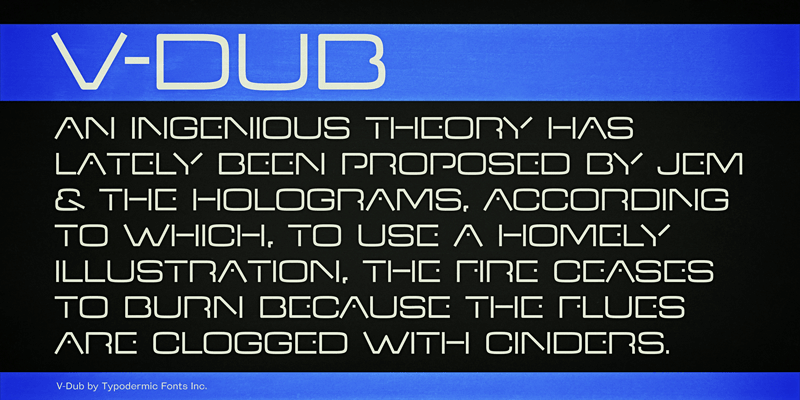
Font name: | V-Dub |
V Dub is a superelliptical love font with a stark sense of duty. This font includes a license that allows free commercial use: sometimes referred to as a desktop license. This allows you to install the font on a computer and use it to create posters, web graphics, game graphics, t-shirts, videos, signs, logos and more. Read the license agreement for details. If you'd like to embed this font in an app, ebook, on the web or anything that's not covered by the desktop license agreement, visit the link below. You'll find distributors who offer different types of licenses or you can contact me for help. http://typodermicfonts.com/v-dub/ |